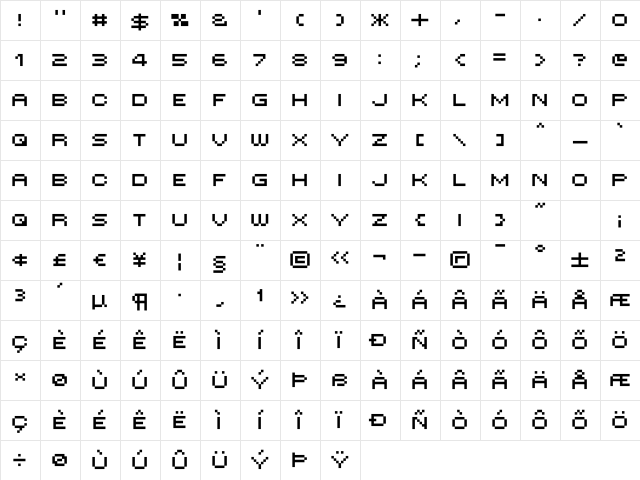
Mini 7 Extended Regular Free Font
Mini 7 Extended Regular
Design Context for Mini 7 Extended
Mini 7 Extended is a composed and adaptable typeface that performs quietly and consistently across a wide range of design contexts.
Pro Tip: Use Mini 7 Extended in both headline and body roles to test its range before committing to a single application.